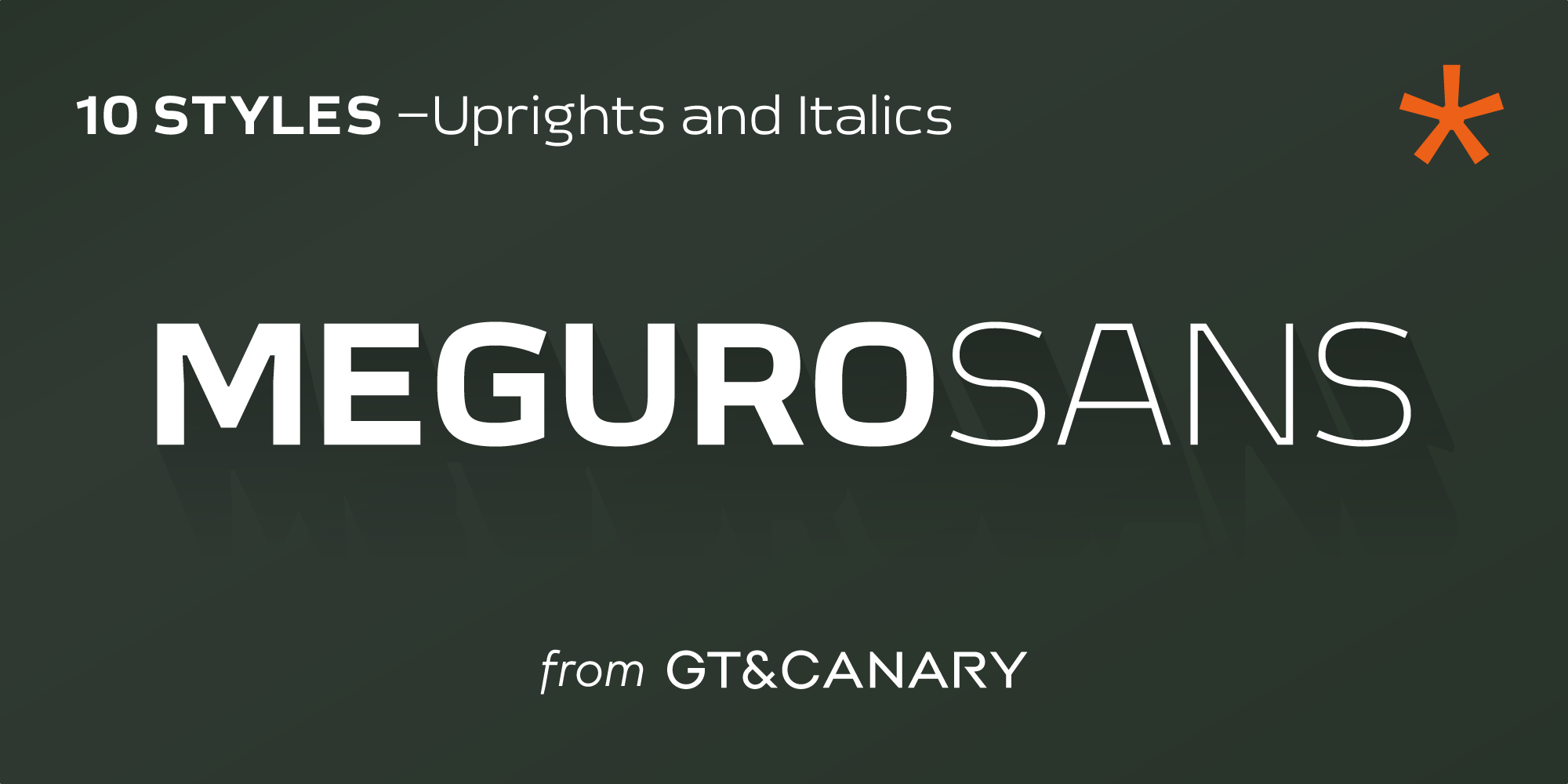
Meguro Sans Font is perfect for Japanese tech company branding, modern Tokyo business signage, contemporary Asian restaurant menus, minimalist product packaging, sleek corporate presentations, urban architecture firms, innovative startup logos, and sophisticated Japanese cultural campaigns.
This font is exciting because it embodies modern Japanese design philosophy with clean minimalism and contemporary sophistication. Meguro Sans Font features precise geometric letterforms with Tokyo-inspired clarity that capture the essence of Japanese innovation and urban elegance, making it ideal for projects that require modern Japanese character and sophisticated simplicity.
The Meguro Sans Font family includes regular, light, medium, bold, and condensed variants, along with Japanese-inspired alternates and modern ligatures that enhance its contemporary character. Each weight maintains the font's clean aesthetic while providing different levels of modern expression for various Japanese and minimalist design applications.
Whether you're developing sophisticated Japanese brands, creating compelling modern materials, or designing contemporary Asian campaigns, Meguro Sans Font Free Download delivers exceptional clarity and Japanese appeal. Its distinctive modern style makes it an excellent choice for designers seeking to add genuine Japanese sophistication and contemporary elegance to their projects. The font's versatility extends from tech startup branding to modern Japanese restaurant signage, ensuring consistent performance across all contemporary applications. With its precisely crafted letterforms and Japanese proportions, this typeface provides professional results that embody modern Tokyo spirit and establish sophisticated brand presence with its unmistakable Japanese character and clean contemporary elegance.